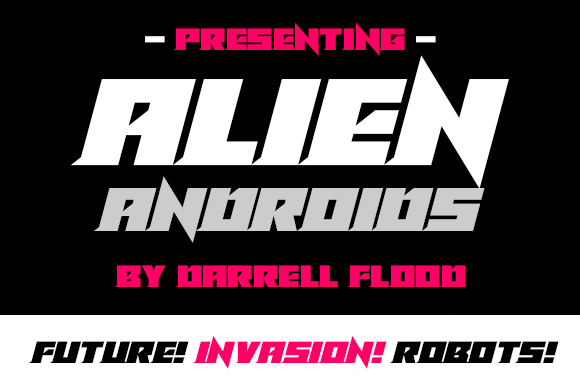
Introducing Alien Androids Font: The Ultimate Choice for Space Adventures and Tech-Themed Designs
Are you a designer or crafter looking for a font that screams futuristic style and high-tech sophistication? Look no further than Alien Androids Font, a sharp, stylized display font that’s out of this world! With its angular, hi-tech aesthetic and strong vertical spikes, this font is perfect for creating eye-catching designs that are sure to leave a lasting impact.
What Makes Alien Androids Font So Special?
Alien Androids Font is a one-of-a-kind typeface that’s specifically designed to evoke the thrill of space adventures and technology-related themes. Its unique blend of sharp, angular lines and futuristic curves creates a truly otherworldly look that’s sure to turn heads. Whether you’re designing a logo, a poster, or a digital graphic, this font is guaranteed to add an extra layer of excitement and energy to your work.
Key Features of Alien Androids Font
- Sharp, stylized design: Alien Androids Font features a bold, stylized design that’s perfect for creating eye-catching headlines and titles.
- Angular, hi-tech style: The font’s angular, hi-tech aesthetic gives it a truly futuristic feel that’s perfect for space adventures and technology-related themes.
- Strong vertical spikes: The font’s strong vertical spikes add an extra layer of impact and drama to your designs.
- Perfect for display text: Alien Androids Font is specifically designed for display text, making it perfect for headlines, titles, and other large-format text.
How to Use Alien Androids Font in Your Designs
Alien Androids Font is incredibly versatile and can be used in a wide range of design applications, including:
- Logos and branding: Use Alien Androids Font to create a bold, eye-catching logo that’s sure to stand out.
- Posters and flyers: The font’s large, bold design makes it perfect for creating attention-grabbing posters and flyers.
- Digital graphics: Alien Androids Font is perfect for creating futuristic digital graphics, such as social media posts, website headers, and more.
- Packaging design: Use the font to create eye-catching packaging designs that are sure to stand out on store shelves.
Tips and Tricks for Getting the Most Out of Alien Androids Font
To get the most out of Alien Androids Font, try the following tips and tricks:
- Experiment with different colors: The font’s bold design looks great in a wide range of colors, so don’t be afraid to experiment and find the perfect hue for your design.
- Use it sparingly: Because of its bold design, Alien Androids Font is best used sparingly. Try using it for headlines and titles, and a more subtle font for body text.
- Combine it with other fonts: Alien Androids Font pairs well with a wide range of other fonts, so try combining it with a more subtle font to create visual interest.
Alien Androids Font is a truly unique and versatile typeface that’s perfect for designers and crafters looking to add a touch of futuristic style to their work. With its sharp, stylized design, angular hi-tech aesthetic, and strong vertical spikes, this font is sure to make a lasting impact. So why wait? Download Alien Androids Font today and start creating out-of-this-world designs!